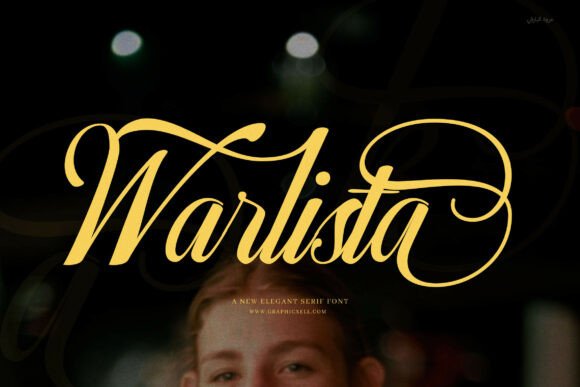
Introducing Warlista Font: Elevate Your Designs with Elegance and Sophistication
Are you looking for a font that exudes luxury, charm, and timeless beauty? Look no further than the Warlista Font, a stylish and elegant script font designed to bring a touch of sophistication to your design projects. With its graceful curves, flowing lines, and a variety of alternate calligraphy characters, Warlista allows you to create eye-catching, personalized typography that feels both classic and modern.
What is Warlista Font?
Warlista is a meticulously crafted script font that embodies the essence of luxury and refinement. Its elegant and classy design makes it perfect for a wide range of applications, from wedding invitations and branding to logo design, album covers, and magazine layouts. Whether you’re a designer, brand owner, or creative entrepreneur, Warlista offers a versatile and sophisticated solution for your typography needs.
Key Features of Warlista Font
- Elegant and classy script with a modern calligraphy look: Warlista boasts a beautiful, flowing script design that adds a touch of elegance to any project.
- Includes many alternate characters and stylish ligatures: With a range of alternate letters and ligatures, Warlista allows you to create natural, stylish compositions without the need for extra design software.
- Perfect for weddings, logos, branding, and invitations: Warlista’s sophisticated design makes it an ideal choice for wedding invitations, branding, logo design, and other high-end applications.
- Works well for both digital and print designs: Whether you’re designing for print or digital platforms, Warlista performs beautifully, ensuring your typography looks stunning in any context.
Use Cases for Warlista Font
Warlista’s versatility makes it suitable for a wide range of design projects, including:
- Wedding Invitations: Create stunning wedding invitations, save-the-date cards, and wedding stationery with Warlista’s elegant script.
- Branding and Logo Design: Establish your brand’s identity with Warlista’s sophisticated and luxurious typography.
- Album Covers and Music Artwork: Add a touch of elegance to your music-themed designs, such as album covers, posters, and social media graphics.
- Magazine Layouts and Publishing: Use Warlista to create eye-catching headlines, titles, and typography for your magazine layouts and publishing projects.
- Digital Designs: Warlista works beautifully on Canva, websites, business cards, posters, boutique branding, and social media posts.
Why Choose Warlista Font?
With so many fonts available, why choose Warlista? Here are just a few reasons:
- Unique and Distinctive Design: Warlista’s elegant script and modern calligraphy look set it apart from other fonts.
- Flexibility and Versatility: Warlista’s range of alternate characters and ligatures make it easy to create natural, stylish compositions.
Tips for Using Warlista Font
To get the most out of Warlista, here are a few tips:
- Experiment with Alternate Characters: Take advantage of Warlista’s range of alternate characters and ligatures to create unique and stylish compositions.
- Pair with Complementary Fonts: Pair Warlista with complementary fonts to create visually appealing typography.
- Use for Headlines and Titles: Use Warlista for headlines and titles to add a touch of elegance and sophistication to your designs.
- Don’t Overuse: Use Warlista judiciously to avoid overwhelming your design.
In conclusion, Warlista Font is a stylish and elegant script font that offers a touch of luxury and sophistication to your design projects. With its range of alternate characters, ligatures, and versatility, Warlista is perfect for wedding invitations, branding, logo design, album covers, magazine layouts, and more. Whether you’re a designer, brand owner, or creative entrepreneur, Warlista is an excellent choice for elevating your designs and adding a touch of elegance.